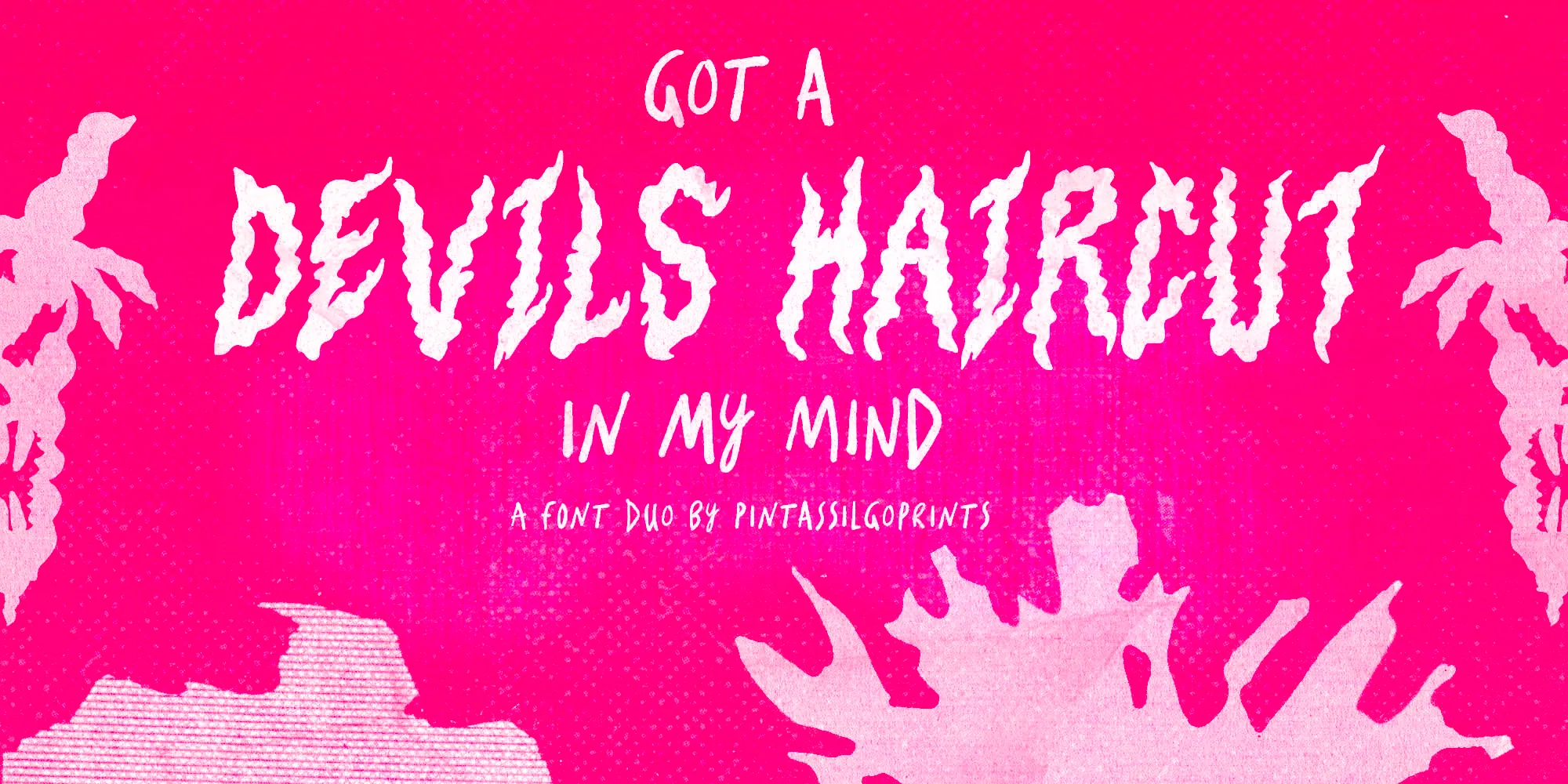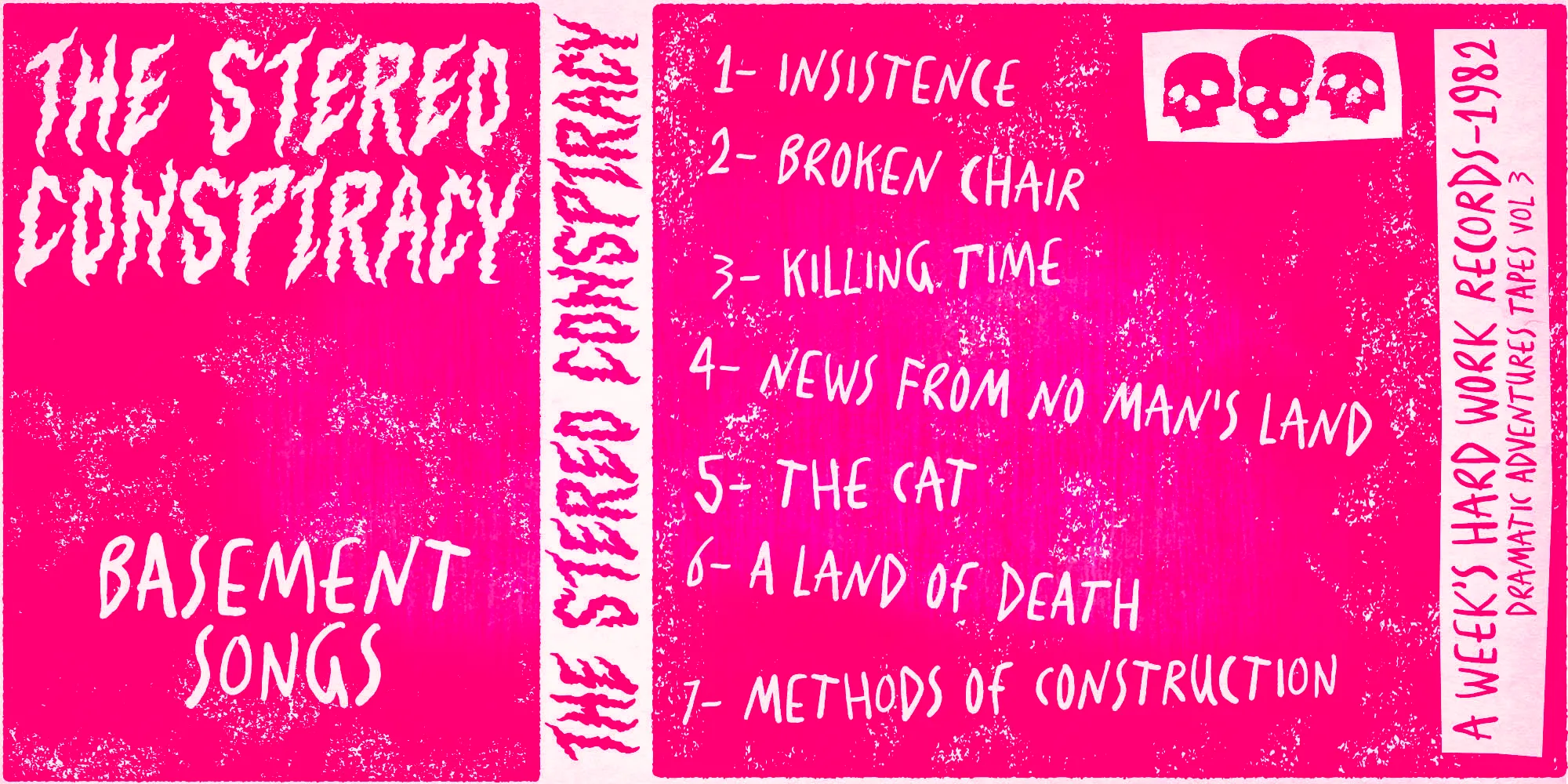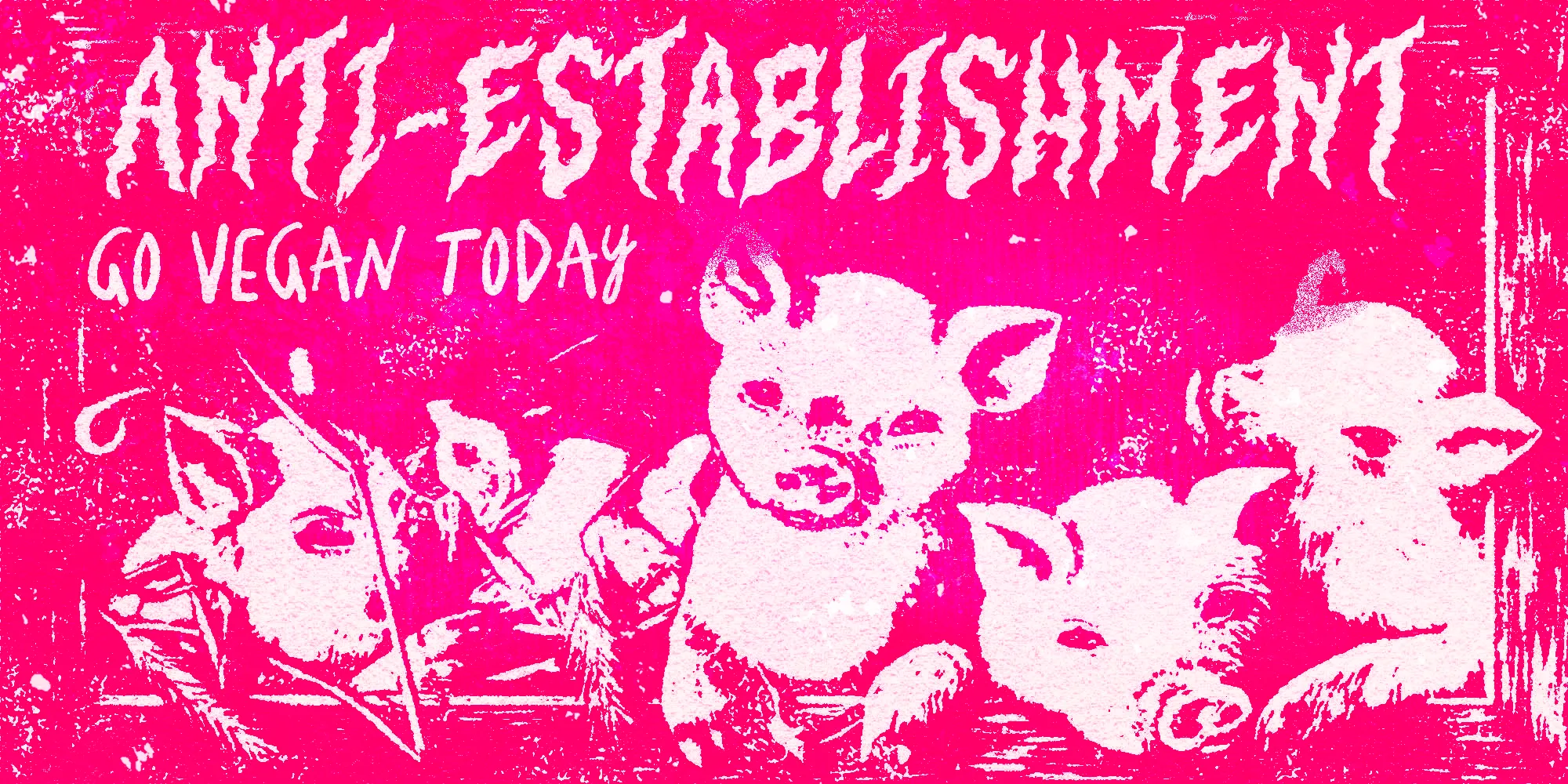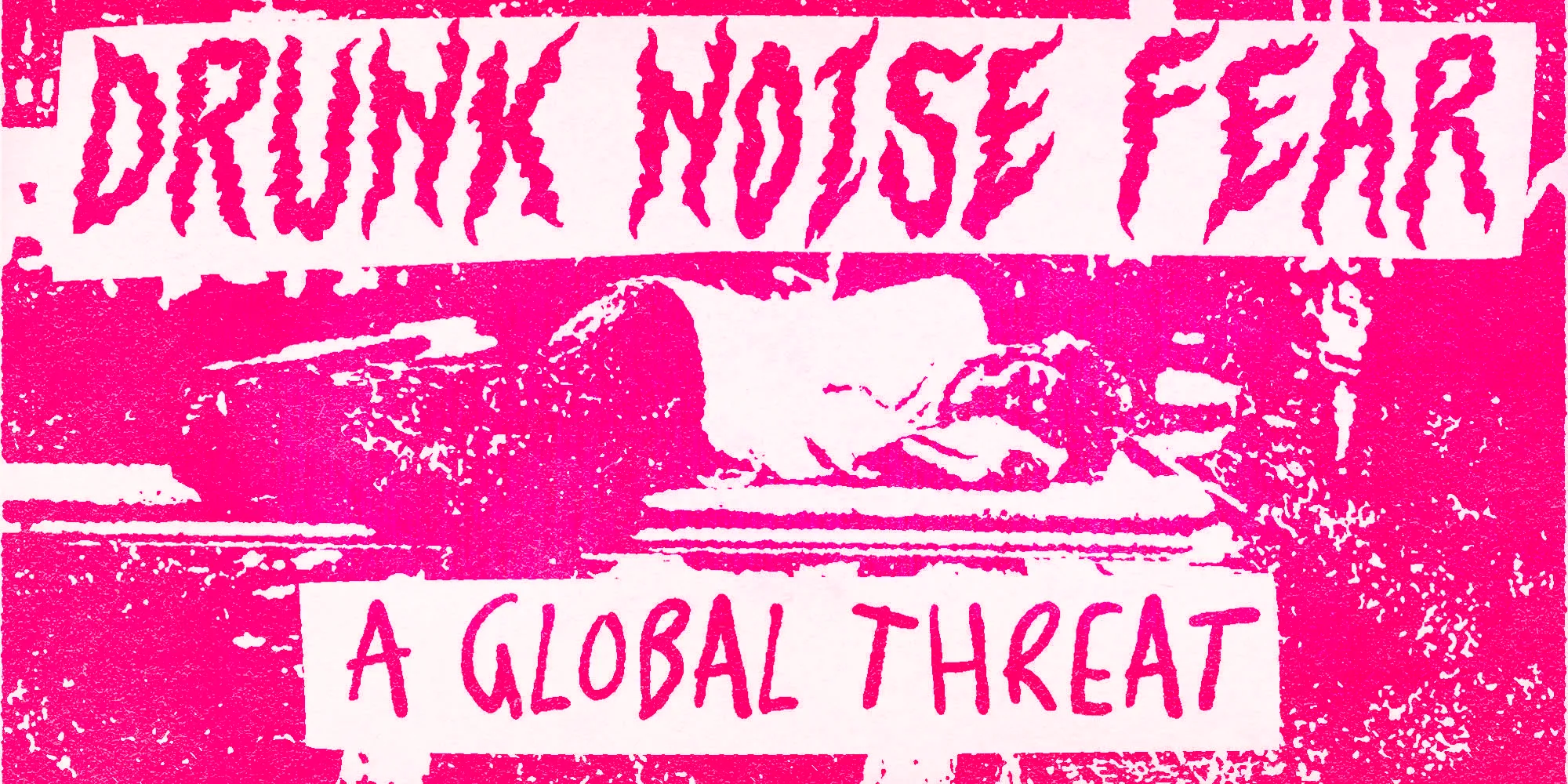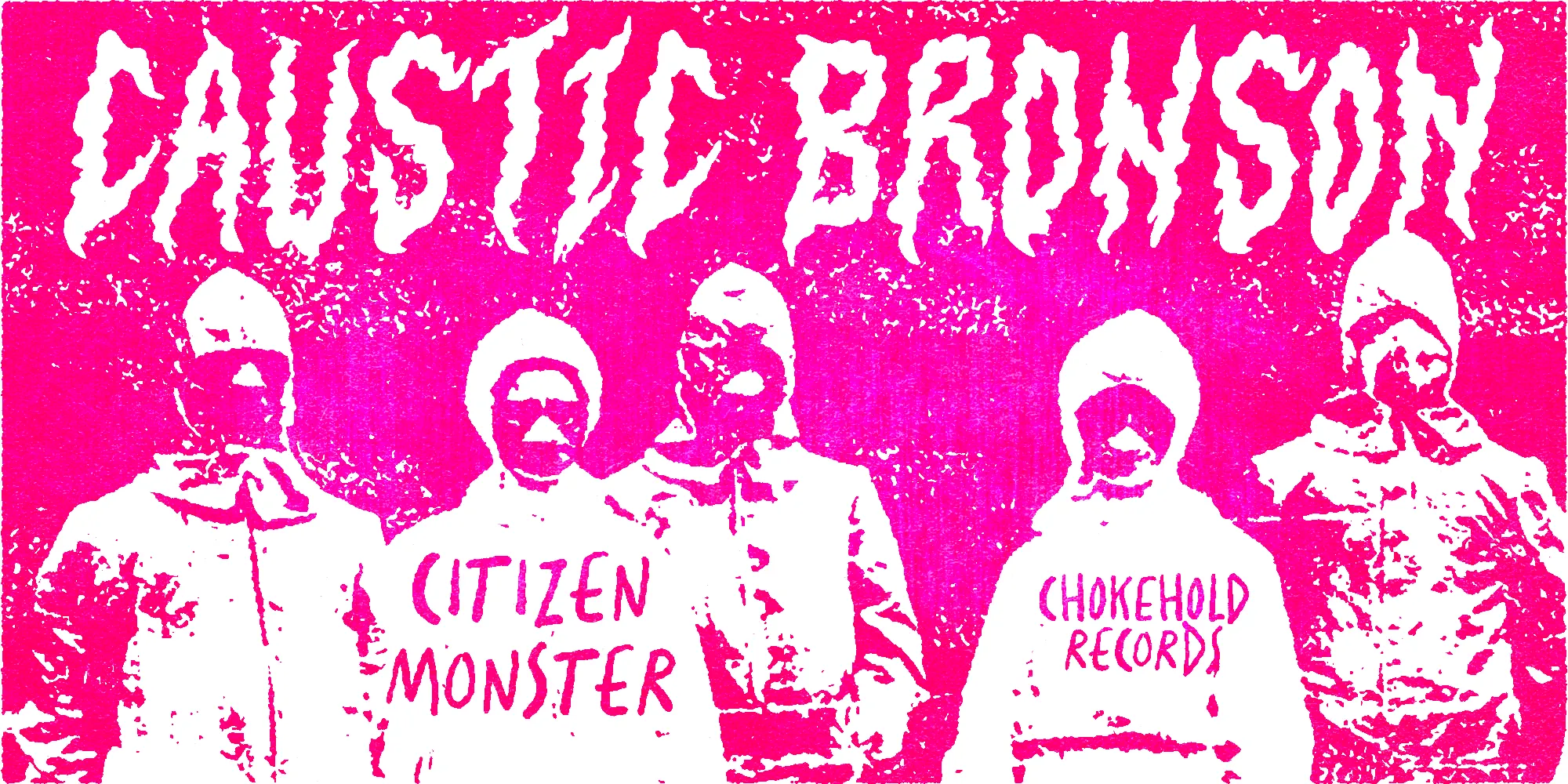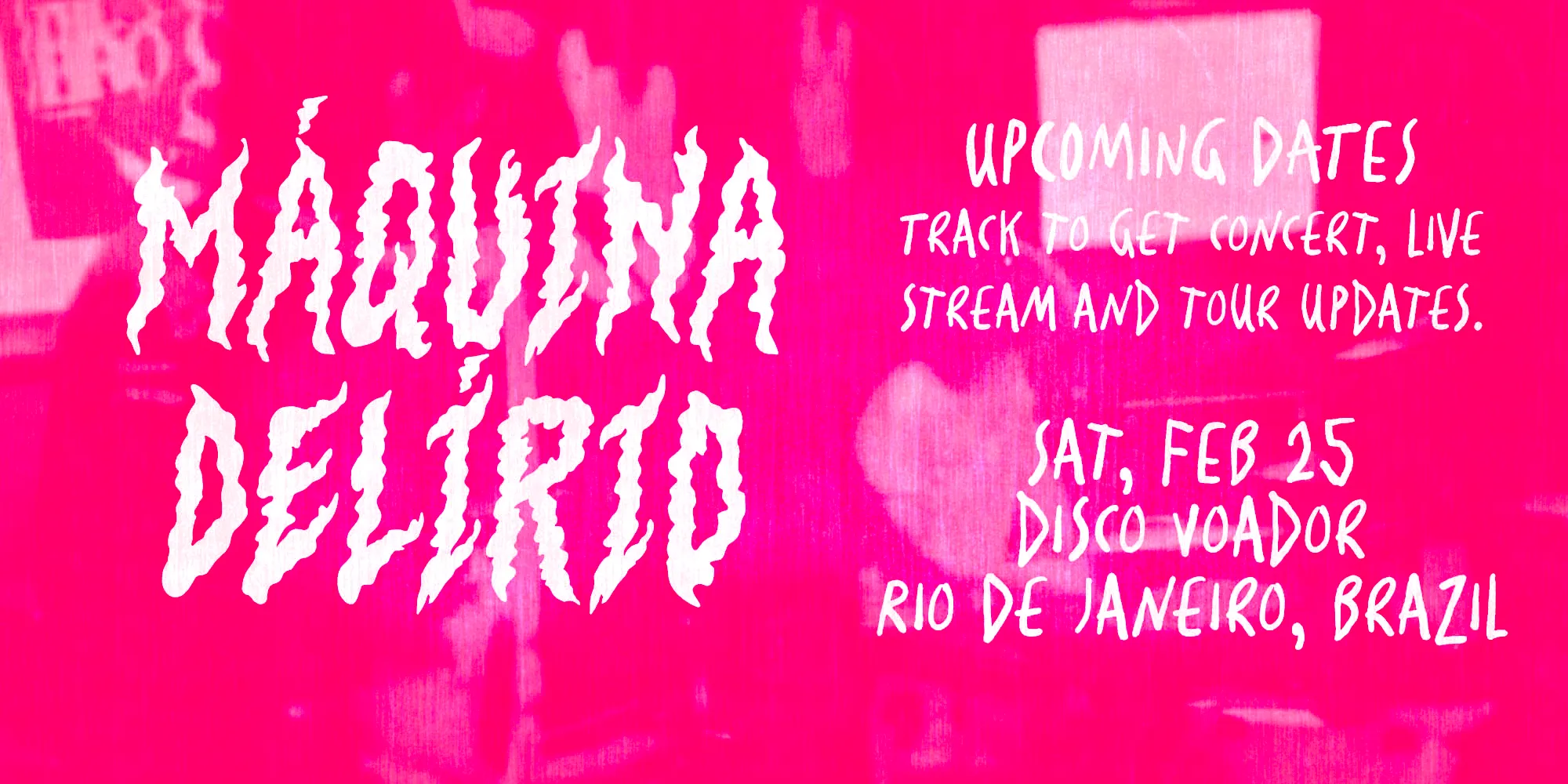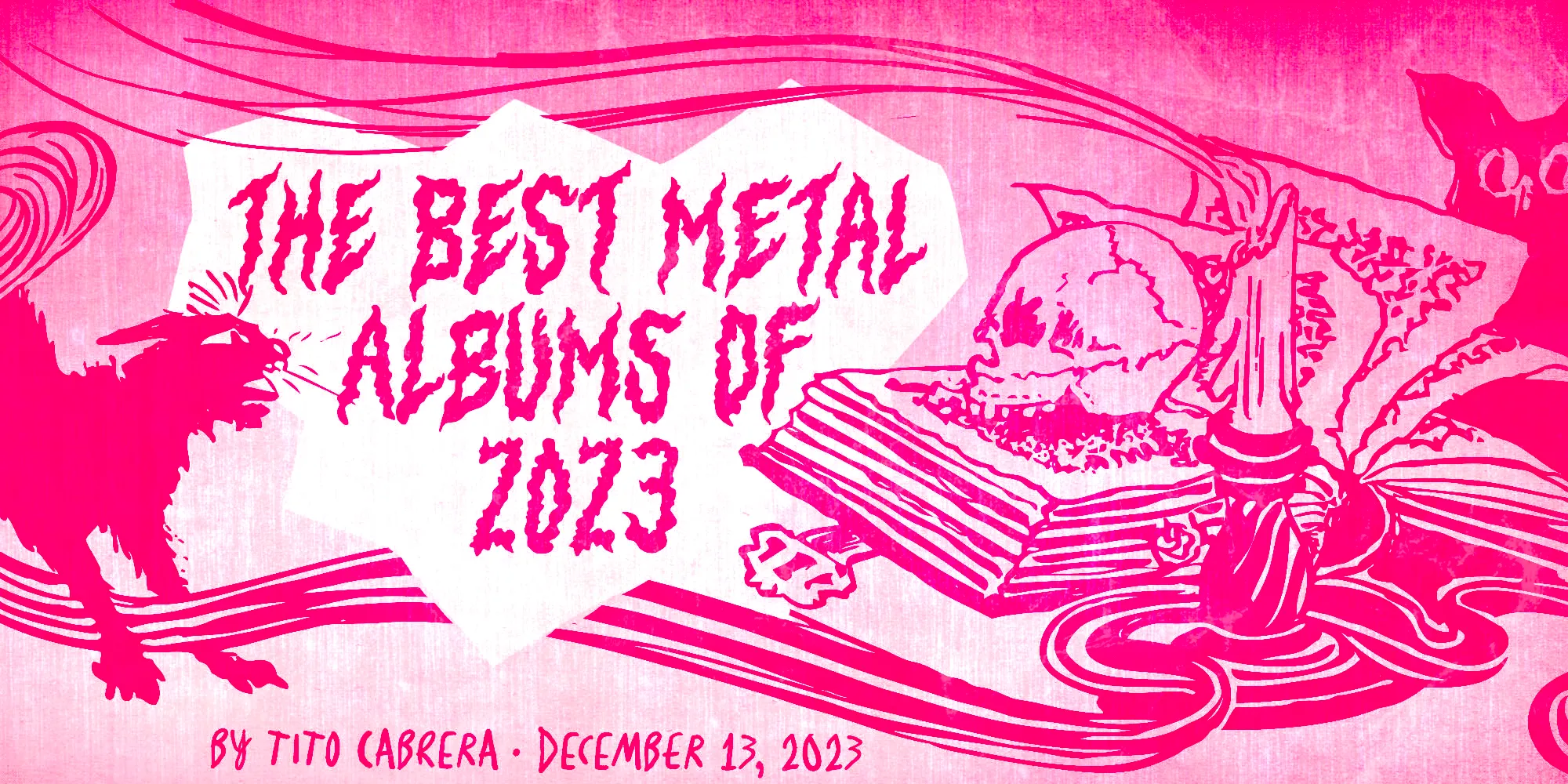
Devils Haircut
Devils Haircut is an exciting font duo consisting of two completely different styles, creative and expressive in their own way, with a touch of punk and counter-culture aesthetic. Together, they make a decidedly eye-catching pair and a rad option for numerous display moods, too! Excellent for adding a distinct style to album covers, food packaging, film titles, and editorial pages.
- Discretionary Ligatures
- Fractions
- Ordinal Numerals
- Superscript